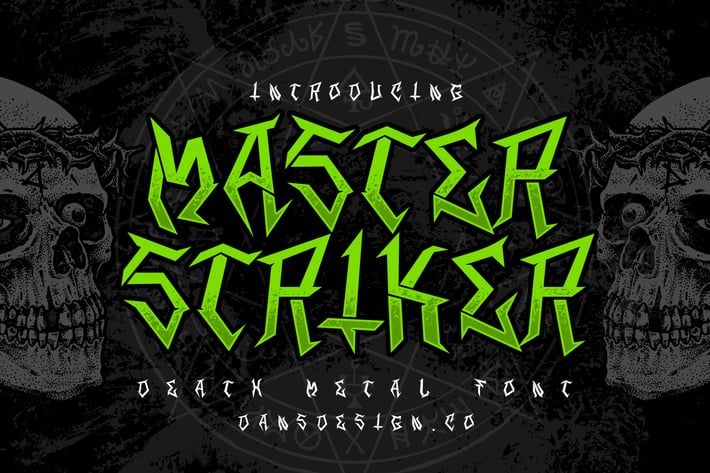
MASTER STRICKER Metal Horror Music Font
MASTER STRICKER Modern Metal Horror Font is distinct, highly detailed, and Horror Metal Font font. It would make a great choice for exquisite Music, Poster, retro-urban designs, tattoo business branding, logos, vintage designs, and more.